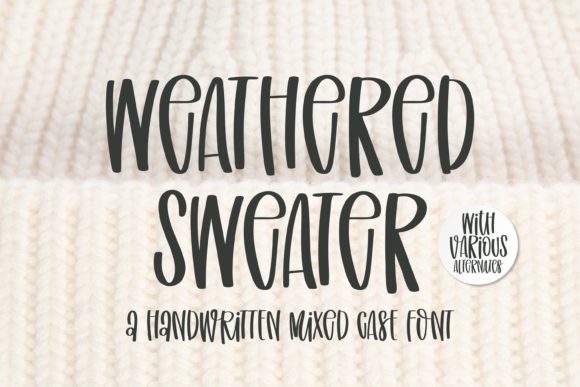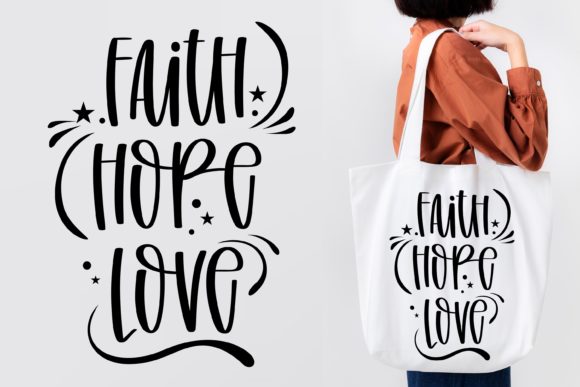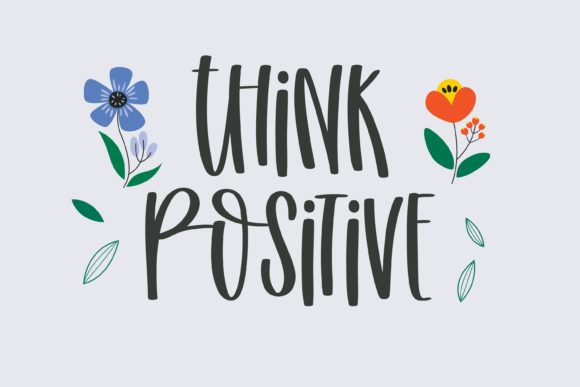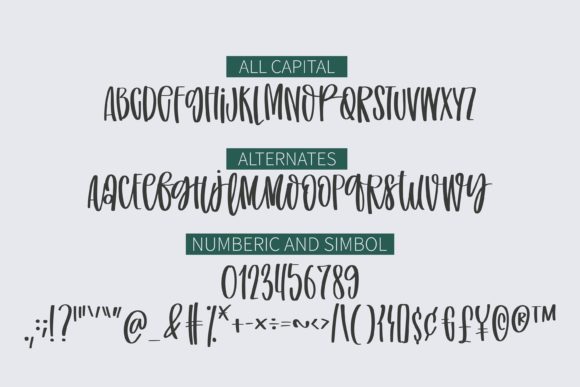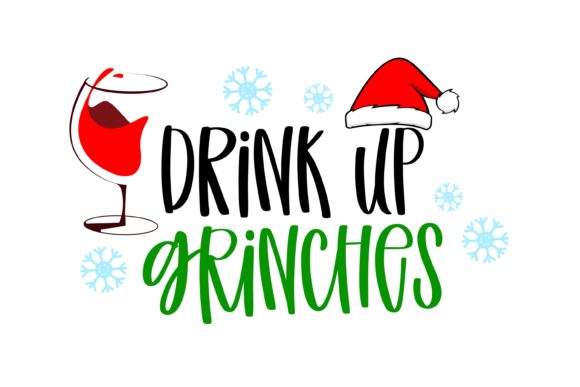
About Weathered Sweater Font
Weathered Sweater is a sweet and quirky handwritten font. Fall in love with its incredibly versatile style and use it to create gorgeous wedding invitations, beautiful stationary art, eye-catching social media posts, and much more!